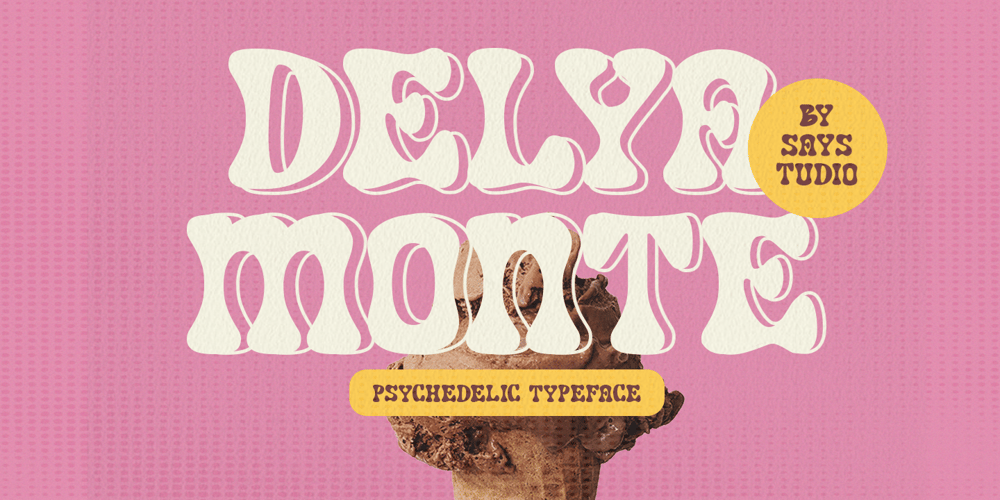
Delya Monte Font Family was designed by Mussyayin and published by Say Studio. Delya Monte contains 2 styles and family package options. Delya Monte is a psychedelic typeface with groovy style Great for trippy band posters, logos, invitations, groovy poster, an album cover, or revamping your branding and anything that needs a flowing funky vibe. Delya Monte is equipped with an outline style to suit your needs if you want to display an outline font in a psychedelic style. Whats Include :- Outline Version- Uppercase, alternates, numbers, punctuation- Multilingual supportIf you want any Question, let me knowHave a wonderful Day,Saystudio